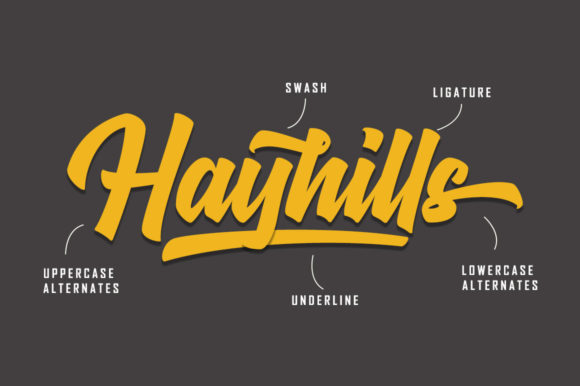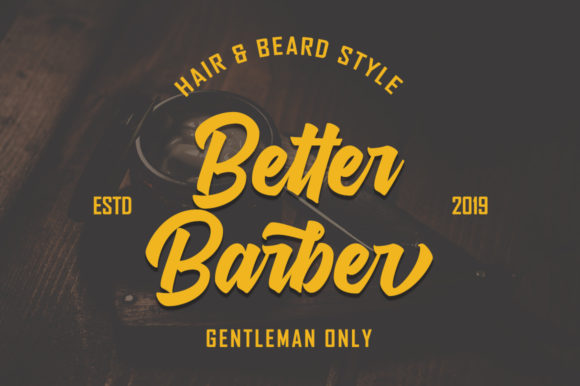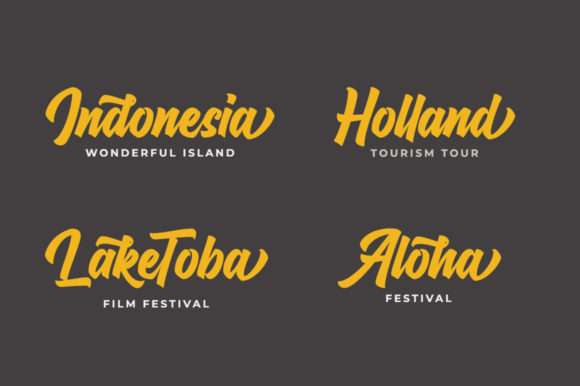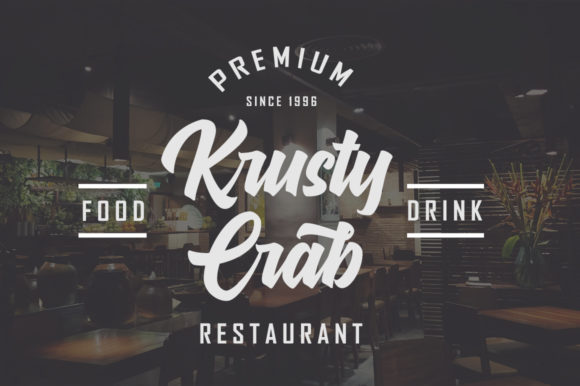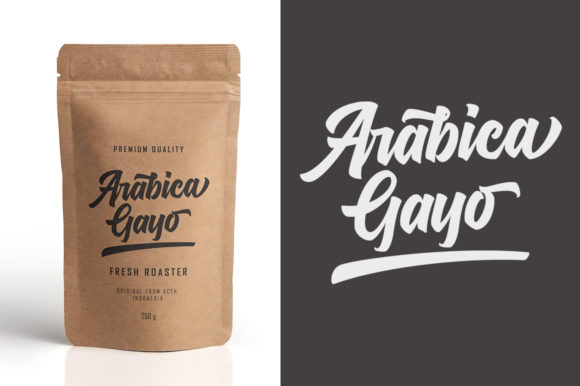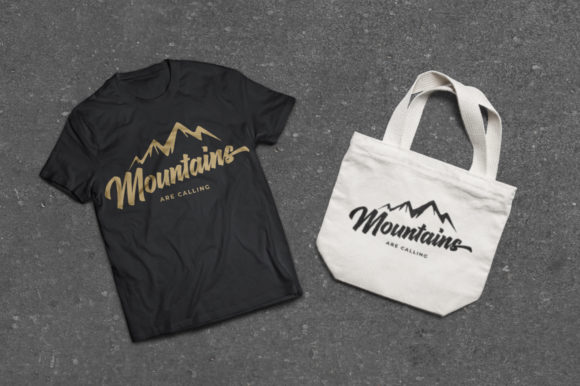
Introduction to Hayhills Font
Have you ever stared at a blank page, feeling the weight of a creative project bearing down on you, and suddenly, the perfect font appears in your mind’s eye? For designers, this moment of clarity is the spark that sets the entire design process ablaze. It’s that elusive combination of style, elegance, and personality that elevates a project from good to great.
For those moments when you need a font that’s as bold as it is beautiful, Hayhills Font is the perfect companion. This charming script font is a design treasure trove, offering a high-quality, vintage feel that’s sure to add a touch of sophistication to any creative project. Whether you’re working on a free download or a paid design, Hayhills Font is a valuable resource that’s sure to bring your designs to life.
Key Features of Hayhills Font
- High-quality, professional font ideal for creative projects, including logos, branding, and advertising materials.
- Comes with a transparent background, making it easy to use as a design resource in various graphic design applications.
- Includes a comprehensive character set, covering a wide range of languages and characters.
- Designed with precision and attention to detail, ensuring a crisp and clear display at resolutions up to 300 DPI.
- Perfect for designers looking for a unique and stylish font to add a touch of sophistication to their creative project.
- Supports various font sizes, making it suitable for use in a variety of design contexts, from small text to large headings.
Honest Review: Hayhills Font
I recently stumbled upon the Hayhills Font and was eager to give it a try. As a designer, I’m always on the lookout for high-quality fonts that can elevate my creative projects.
- High-quality design: The font’s sleek and modern design makes it perfect for a wide range of creative projects, from graphic design to digital art.
- Transparent background: The font’s transparent background allows for easy layering and customization, giving designers more flexibility when working on complex designs.
- Limited character set: While the font is beautiful, it’s limited to a specific character set, which may not be suitable for all design projects.
- No bold or italic variations: The font only comes in a standard weight, which may limit its use in certain design contexts.
Overall, I’m impressed with the Hayhills Font’s design and flexibility. While it has some limitations, it’s a great addition to any designer’s toolkit. If you’re looking for a high-quality, free font for your creative projects, I’d definitely recommend giving Hayhills Font a try.
The Hayhills Font is a high-quality design resource perfect for creative projects that require a unique and elegant touch. With a transparent background, this font can be easily integrated into various design applications.
Tips for Getting the Most Out of Hayhills Font
To get the most out of the Hayhills Font, consider the following tips:
– Experiment with different font sizes and styles to create a unique look.
– Pair the Hayhills Font with other high-quality design resources for a cohesive design.
Common Use Cases for Hayhills Font
The Hayhills Font is perfect for a variety of creative projects, including:
– Wedding invitations and stationery
– Business cards and marketing materials
– Social media graphics and advertising